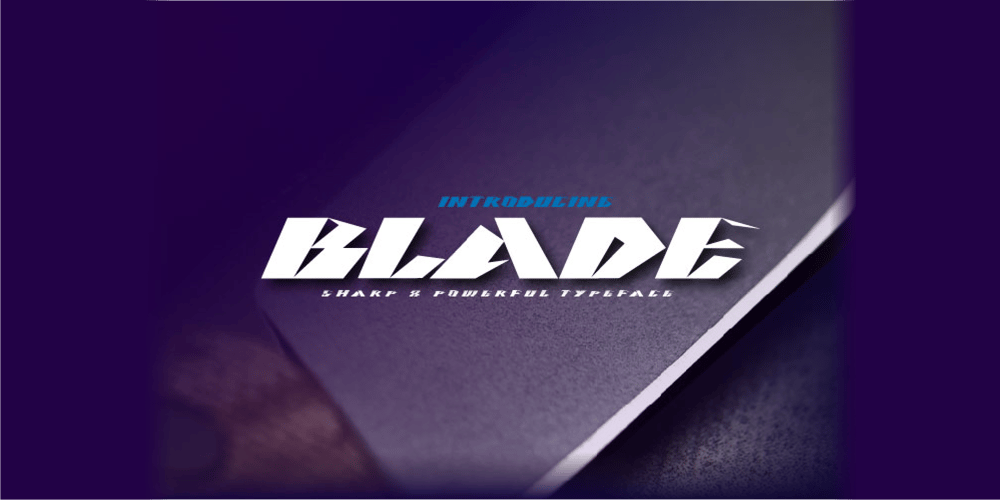
BLADE sharp Font Family was designed by Wahyu Aji Prasetyo and published by WAP Type. BLADE sharp contains 1 styles and family package options. About the ProductBlade is a bold and authentic display font. It celebrates abstract shapes in all their eclectic brilliance. Add this font to any racing or speed related design idea and notice how it will make them stand out!